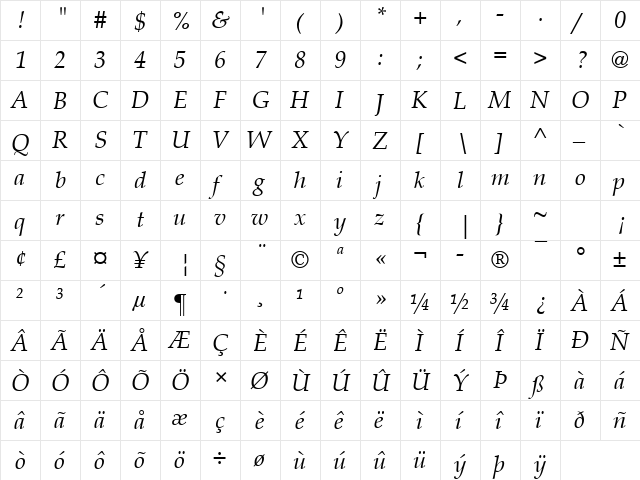
Book Antiqua Italic
Design Context for Book Antiqua Typeface
Book Antiqua is a composed and adaptable typeface that performs quietly and consistently across a wide range of design contexts. The dynamic lean of this cut emphasises speed and emphasis in any layout.
Pro Tip: Use Book Antiqua for emphasis, pull quotes, and subheadings where its slanted energy can add rhythm to the layout.